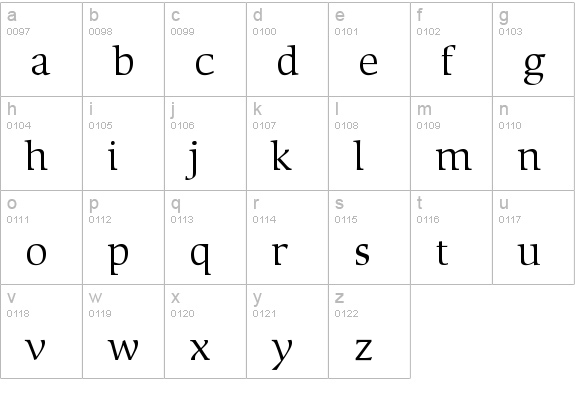
SierraEF-Regular Font Details
SierraEF-Regular is the standard, neutral variant in the SierraEF typeface family \xE2\x80\x94 well suited to general body text, paragraphs, and standard typographic work.
SierraEF-Regular is a beautifully crafted font that will add a touch of sophistication to any design project. Its elegant and timeless design makes it perfect for a wide range of applications, from branding and logo design to invitations and packaging. This font features clean lines and a balanced letterform, giving it a classic yet modern look. The versatile nature of SierraEF-Regular allows it to be used in both bold headlines and subtle body text, making it a go-to choice for designers looking to create visual impact. What's even better is that SierraEF-Regular is available for free! You can easily download this font from FontsMarket.com, where it can be found in a variety of formats to suit your needs. Whether you're a professional designer or a DIY enthusiast, you can now access this high-quality font without spending a dime. SierraEF-Regular's freely available status means that you can use it in personal and commercial projects without worrying about any licensing restrictions. It's a font that offers both style and convenience, making it a valuable addition to any designer's toolkit. So why wait? Download SierraEF-Regular today and unleash your creativity with this stunning font. Experience the beauty and versatility of this font yourself, and see how it can elevate your designs to new heights. FontsMarket.com is your one-stop destination for accessing SierraEF-Regular and a wide range of other premium fonts, all available for free.